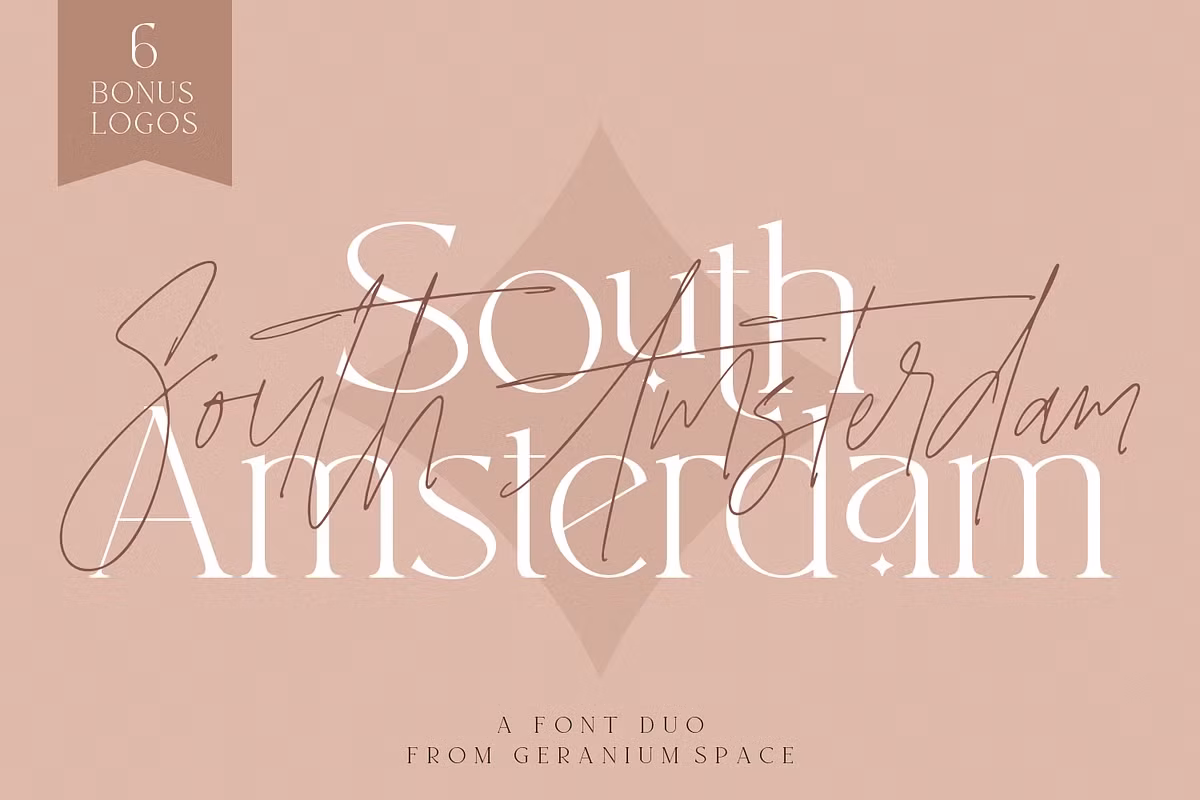
South Amsterdam Font Free Download is a sophisticated font duo that combines a stylish script with a clean serif—perfect for crafting elegant logos, branding materials, packaging, social media graphics, and upscale invitations. This set also comes with ready-to-use logo templates, making it a powerful toolkit for designers looking to create a premium, cohesive visual identity.
The script font delivers flowing, hand-lettered charm with a natural feel, while the serif font adds structure and refinement, creating a beautiful balance between modern and classic. Together, they form a dynamic pairing ideal for everything from boutique branding to fashion editorials.
Included are uppercase and lowercase letters, numerals, punctuation, ligatures, and logo templates to make your workflow seamless and stylish.